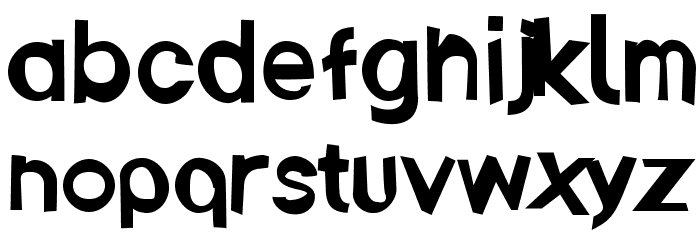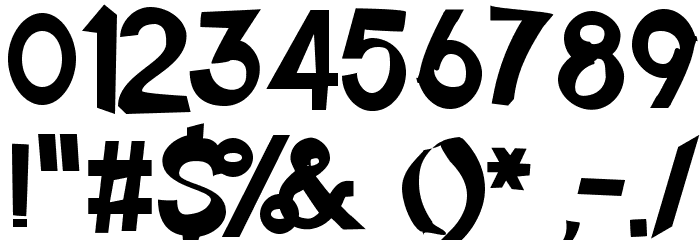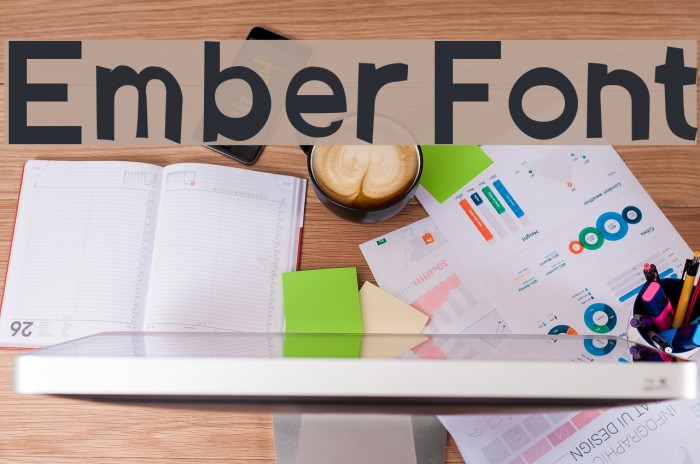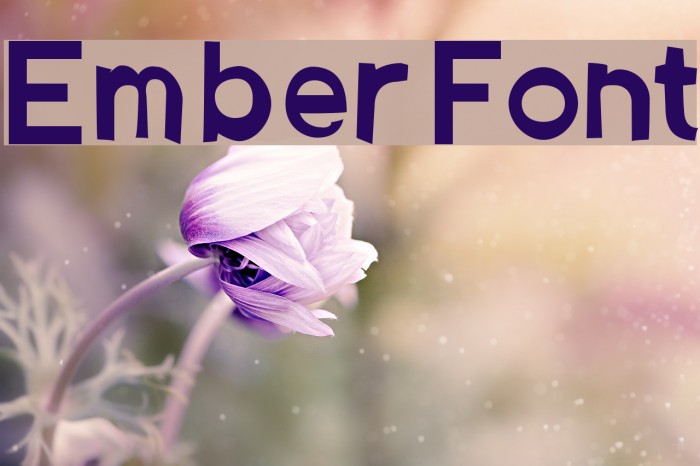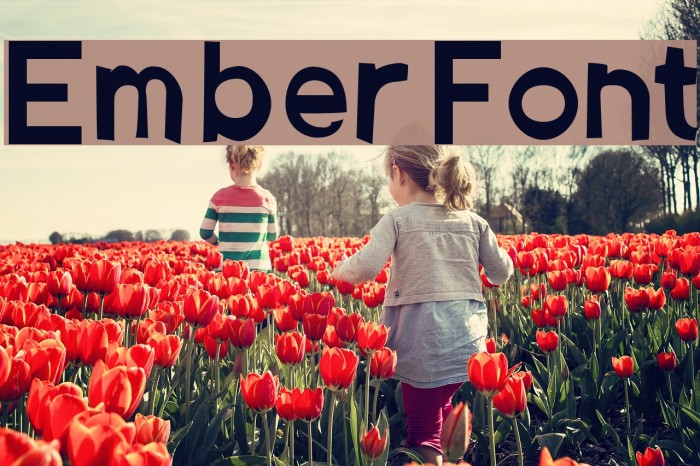
Ember Font
This font features a playful and dynamic style with a slightly irregular and whimsical appearance. The characters have a bold presence, with varying stroke widths that add a sense of movement and energy. The uppercase letters are strong and assertive, while the lowercase letters maintain a friendly and approachable feel. The numbers are bold and consistent with the overall style, ensuring readability. Special characters are creatively designed, adding to the font's unique personality. This font is ideal for projects that require a fun and engaging visual impact.
A playful, bold font with dynamic and whimsical character shapes.
- Proposed Projects: Perfect for children's books, playful branding, posters, and creative advertising.
- Overall Style: Playful, Dynamic